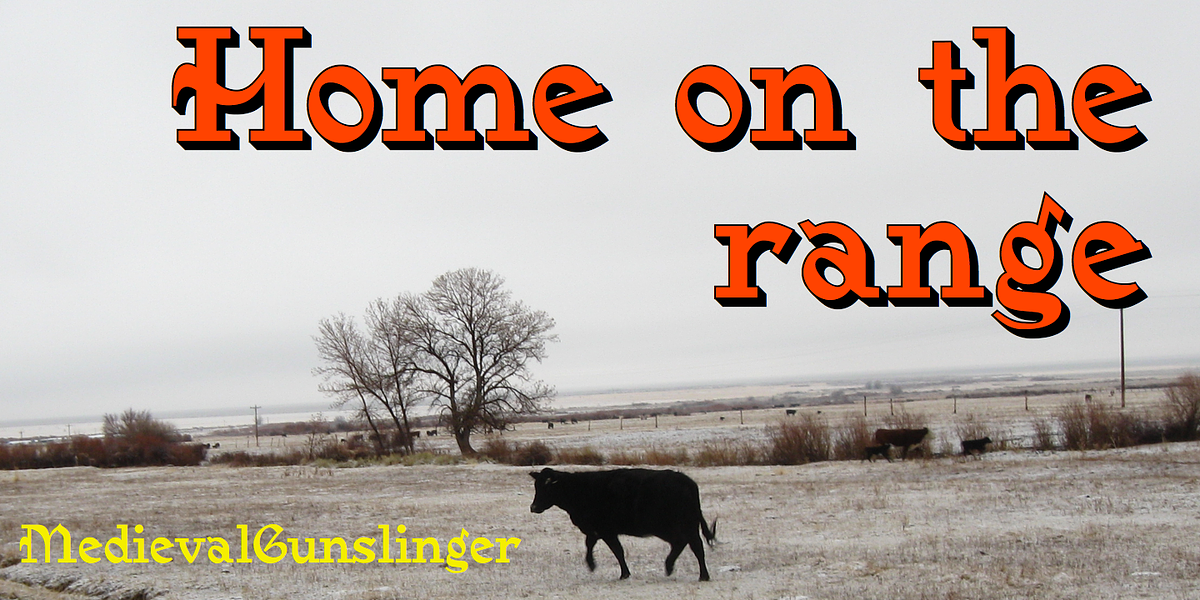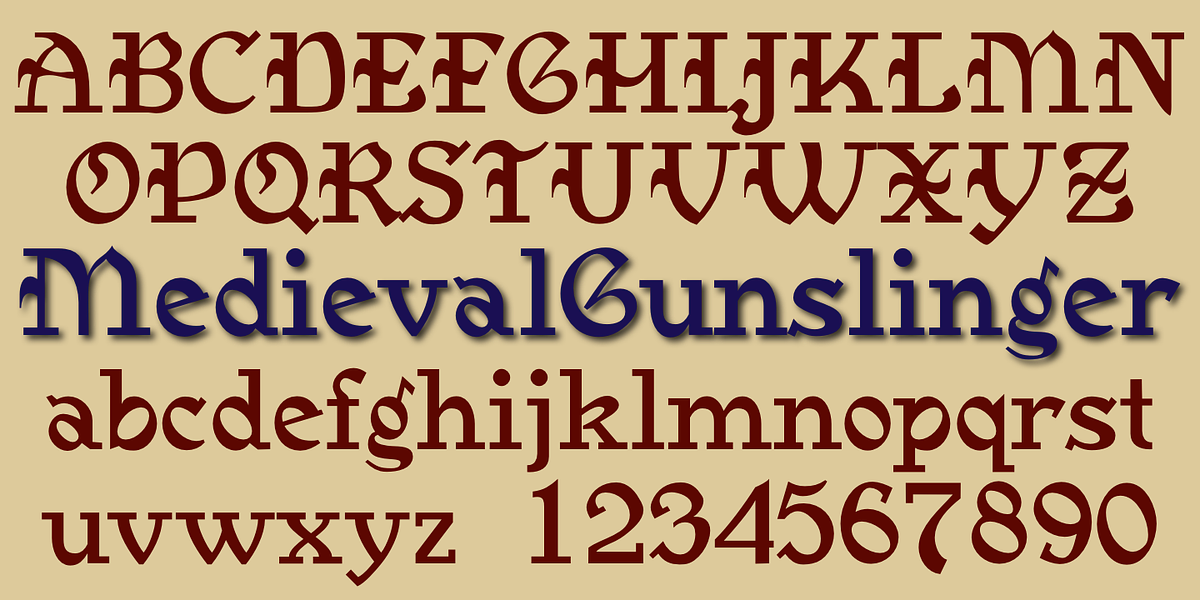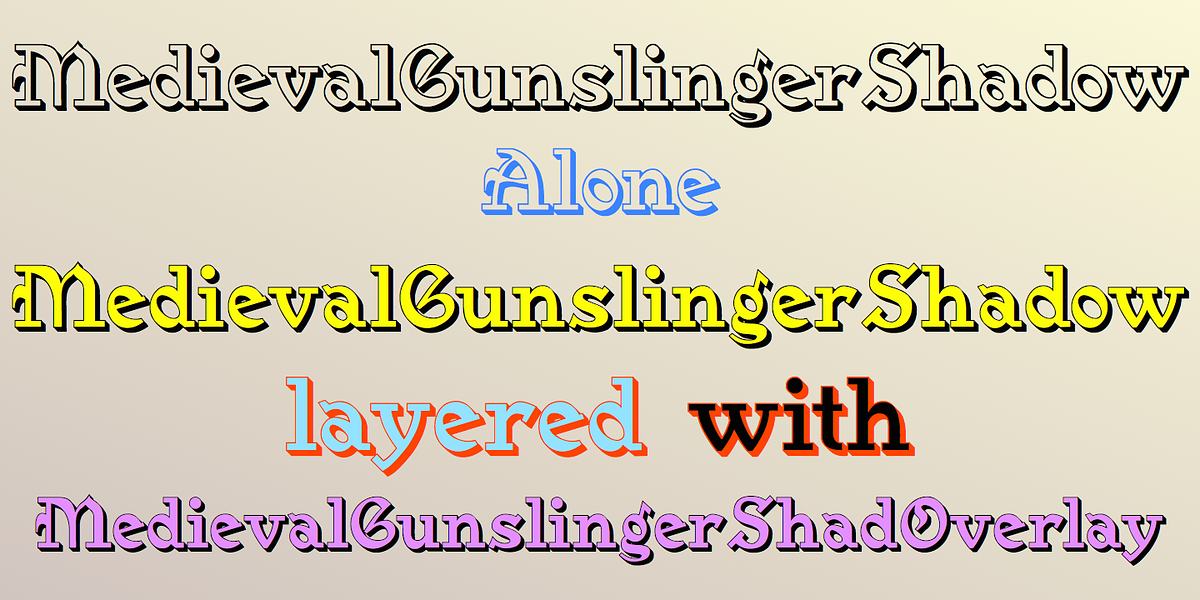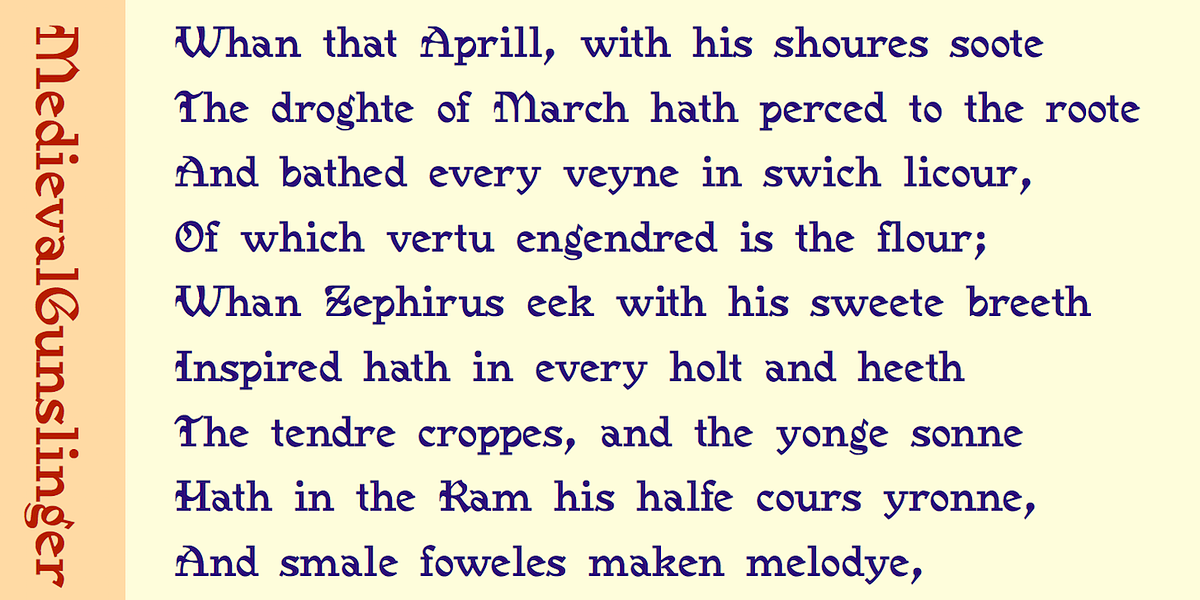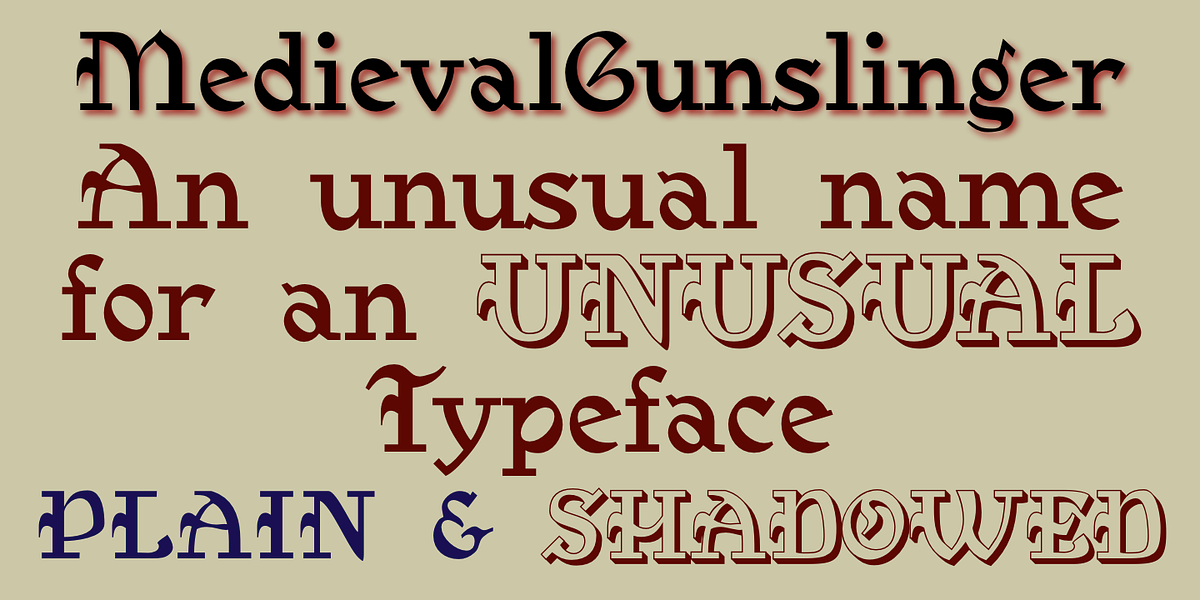
Medieval Gunslinger
Medieval Gunslinger Shadow Overlay is a blackletter font with calligraphic influences. Its design draws inspiration from 19th-century squared-serif typefaces and incorporates medieval and calligraphic ornamentation. The font is specifically spaced to be layered with the 'Medieval Gunslinger Shadow' font, creating a visually striking bicolored effect.